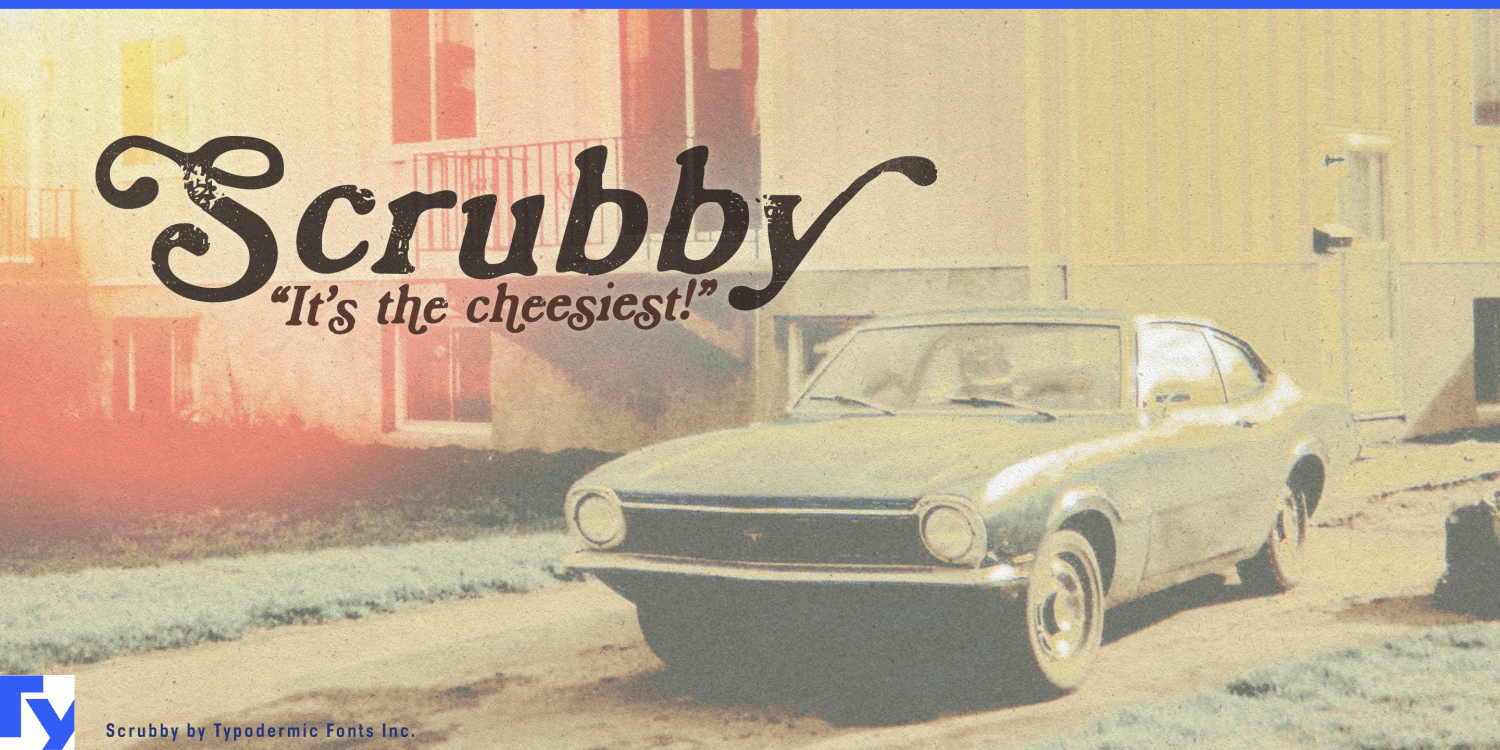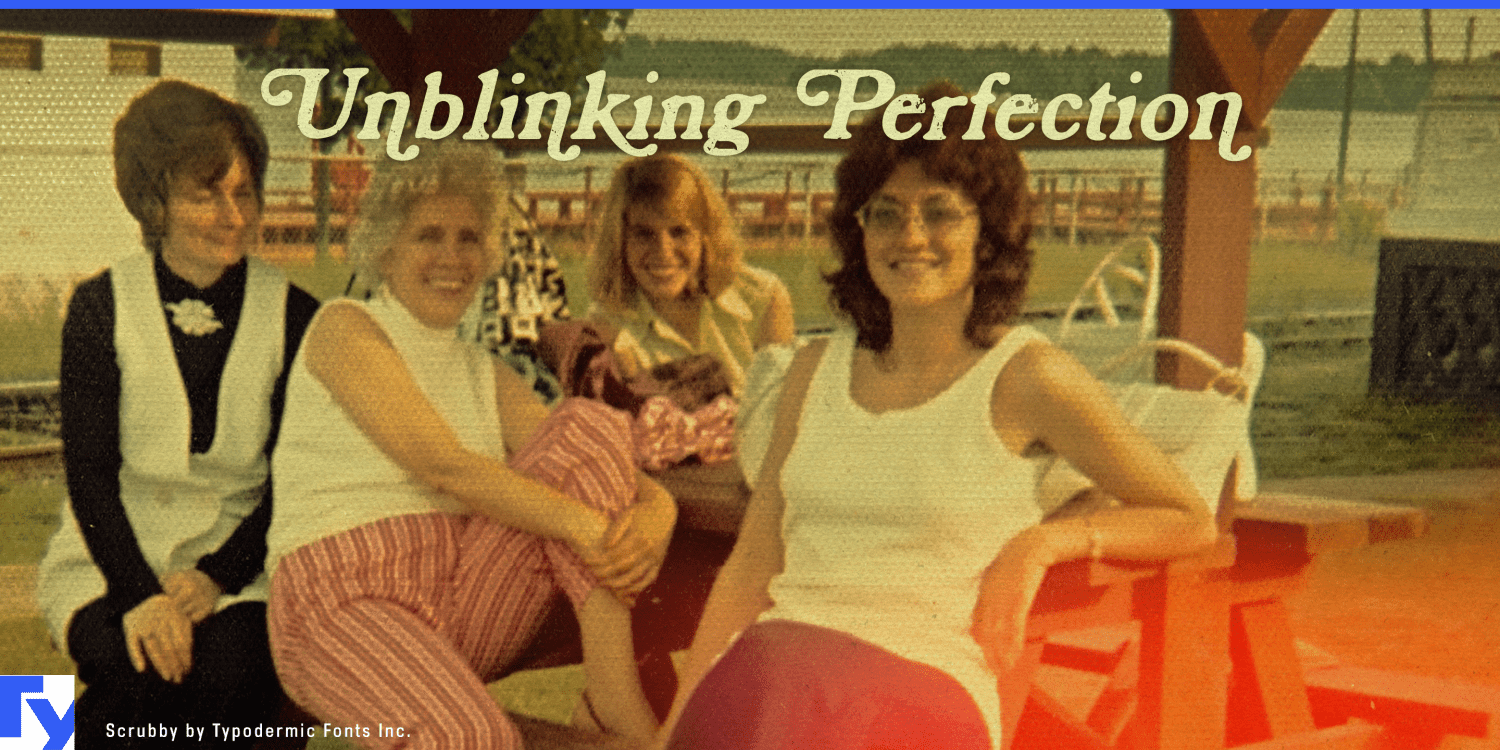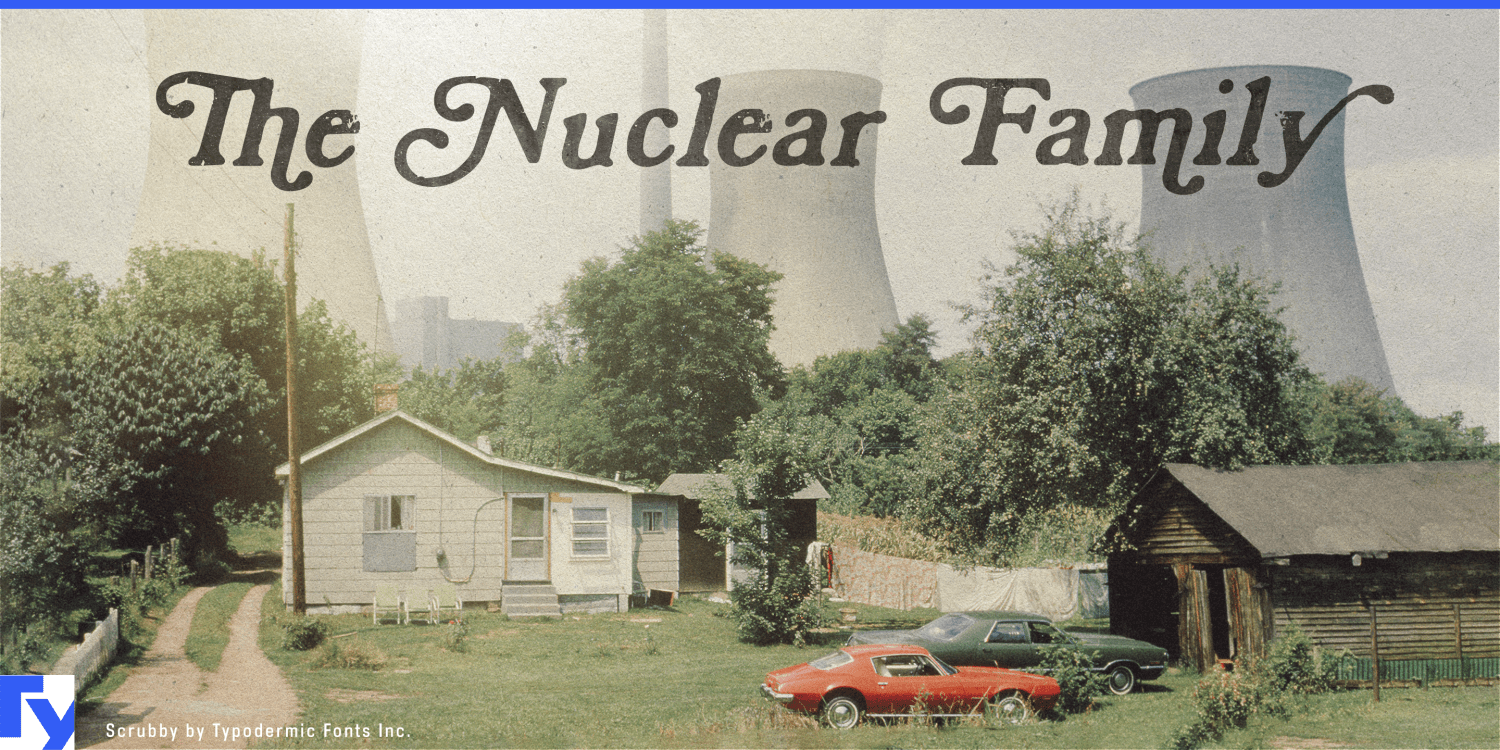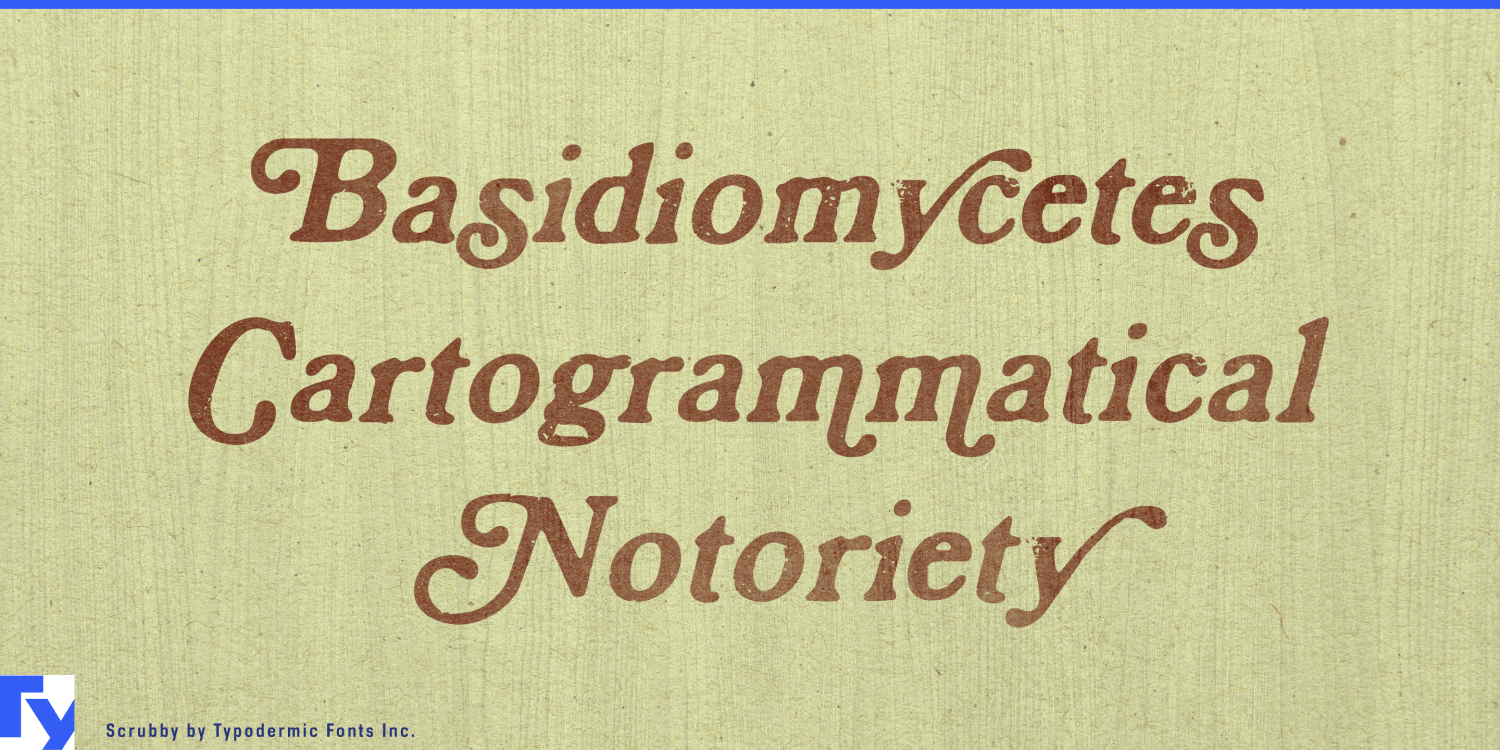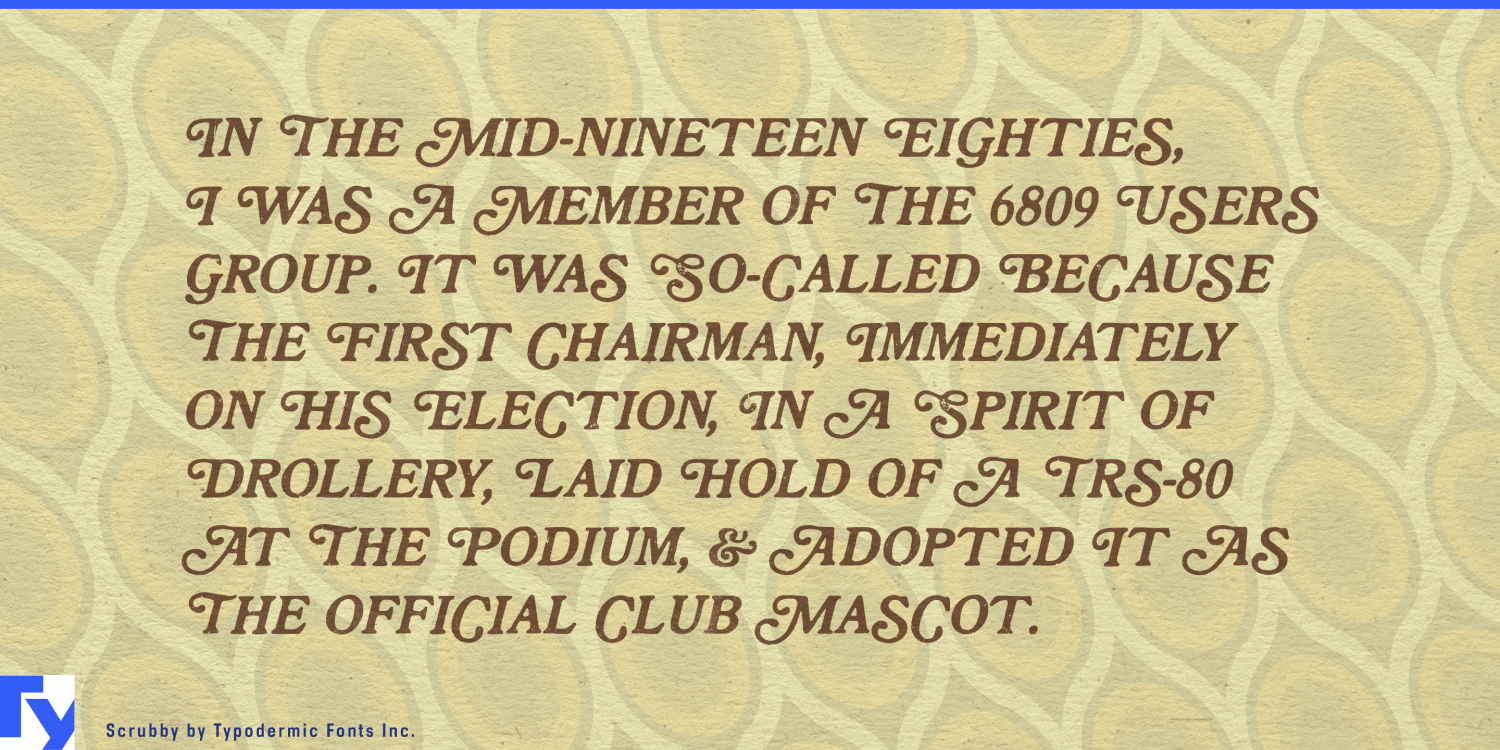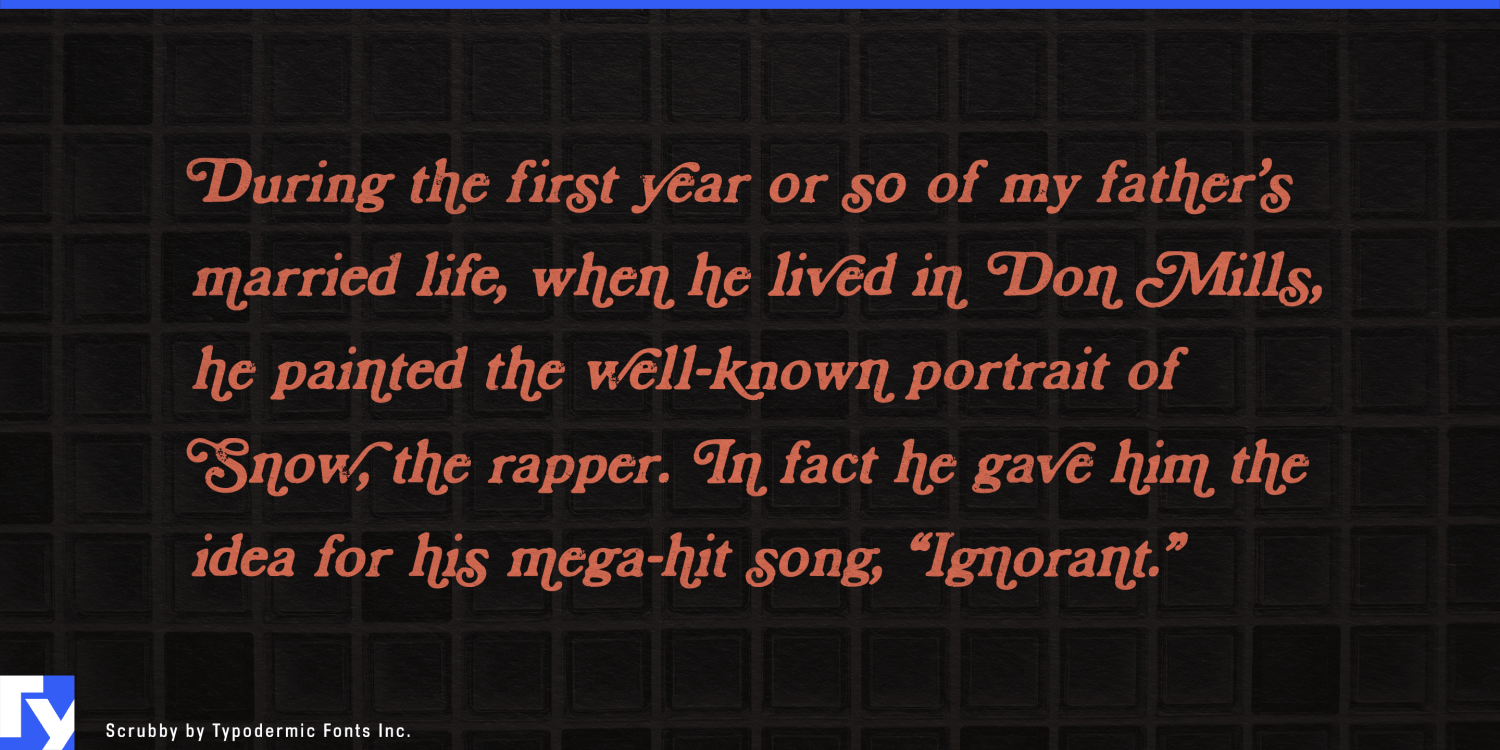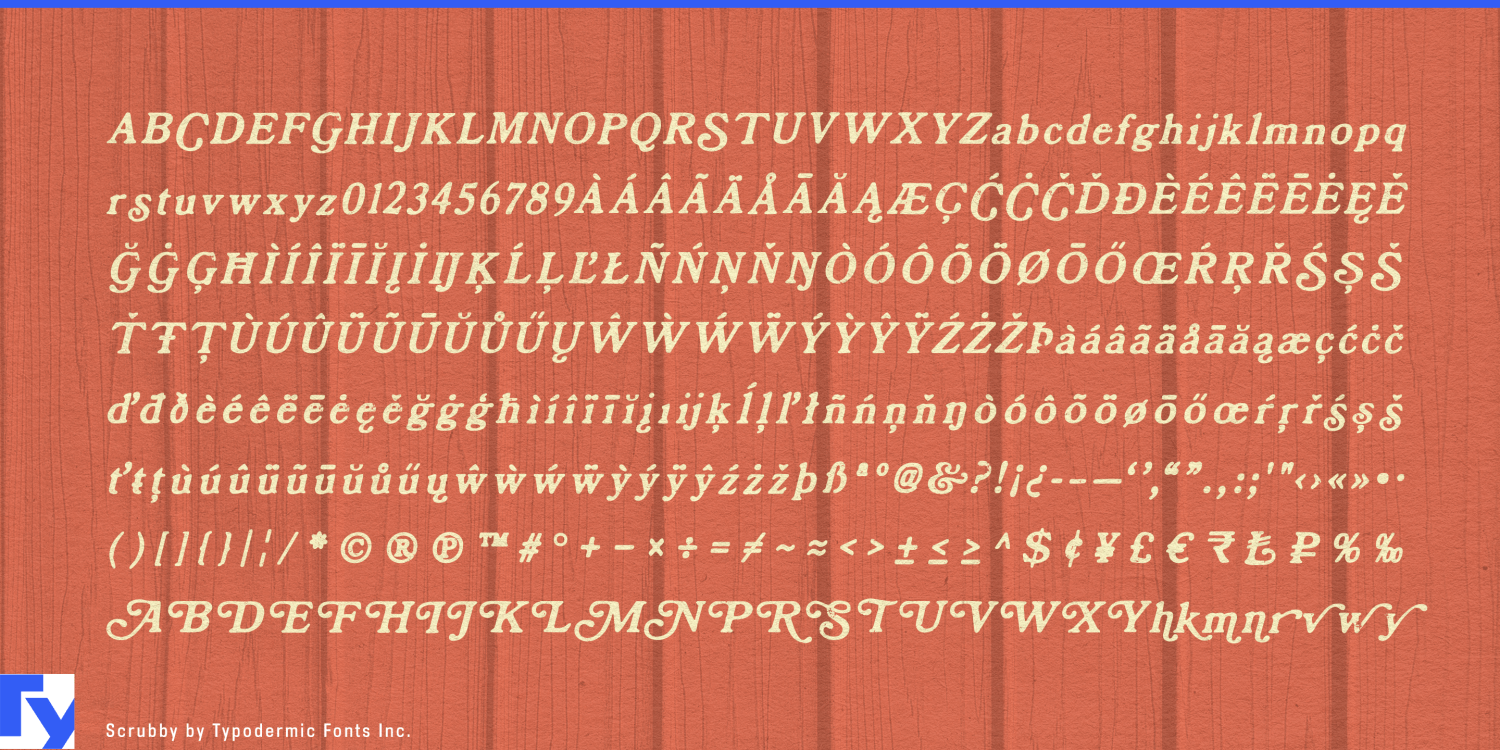
Scrubby
Scrubby is for new merchandise that needs to look like old merchandise.
Its broad, exuberant serif forms draw on the swashy display lettering of the late 1960s and 1970s, but the surface is what gives Scrubby its particular usefulness. Instead of looking scratched, chipped or mechanically distressed, the letters have a softened, fuzzy wear that resembles ink printed on cotton and faded through years of washing. It feels less like a retro font with damage added afterward and more like lettering that has actually lived on a garment.
That makes Scrubby especially effective for throwback sportswear. Vintage-style team shirts, alumni collections, tennis and running apparel, ringer tees, crewnecks and recreational-club merchandise often need something softer than varsity slabs or condensed athletic lettering. Scrubby can carry team names, tournament titles, club identities and large chest graphics with the flavor of an older campus bookstore, resort shop or pro-shop rack.
Licensed heritage merchandise creates an even broader role. Film studios, record labels, television properties, automotive companies and established consumer brands often need fresh typography to sit beside archival images, old logos or anniversary artwork. Scrubby gives collection names, tour reissues, anniversary shirts, fictional company names and supporting slogans a surface that already belongs beside faded graphics and washed fabric.
Ski lodges, tennis resorts, coastal hotels, heritage amusement parks and other established destinations can use the same language for club-shop apparel, souvenir sweatshirts and anniversary collections. Heritage recreation brands can apply it to archive-inspired skiing, hiking, canoeing, fishing or cycling merchandise, while automotive and motorcycle brands can use it for anniversary racing shirts, dealership-inspired graphics and historic model collections.
Scrubby’s texture does more than signal age. It helps newly created lettering sit comfortably beside archival photography, faded illustrations and genuinely old trademarks without requiring every word to be distressed by hand. The swashes provide the period vocabulary; the worn surface makes the illusion convincing.